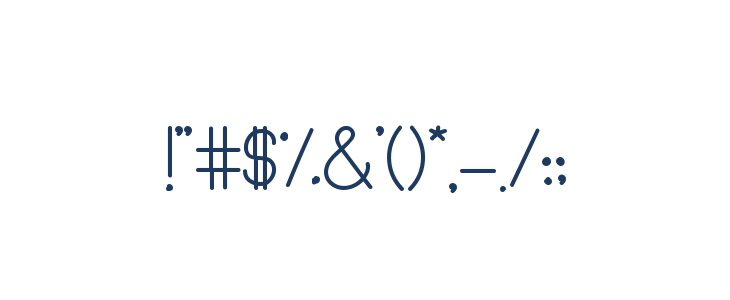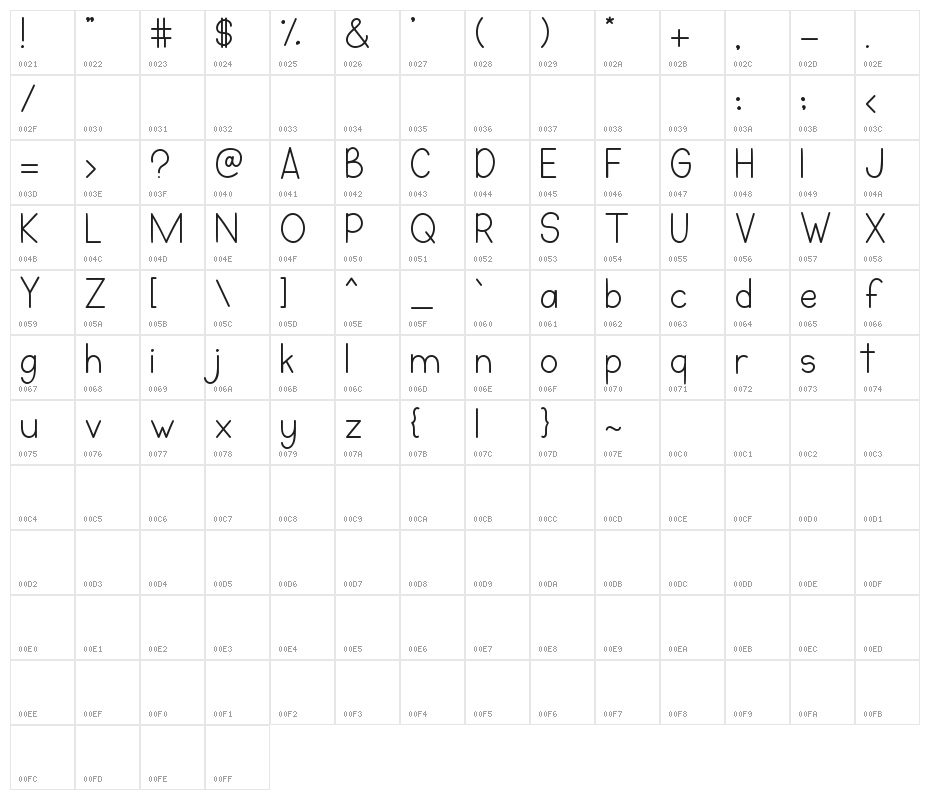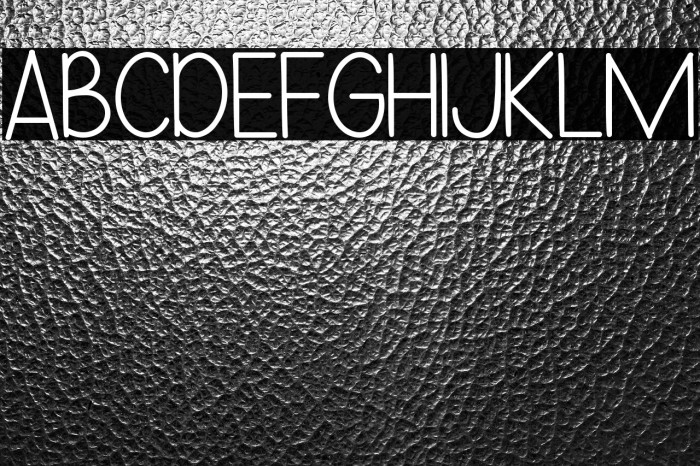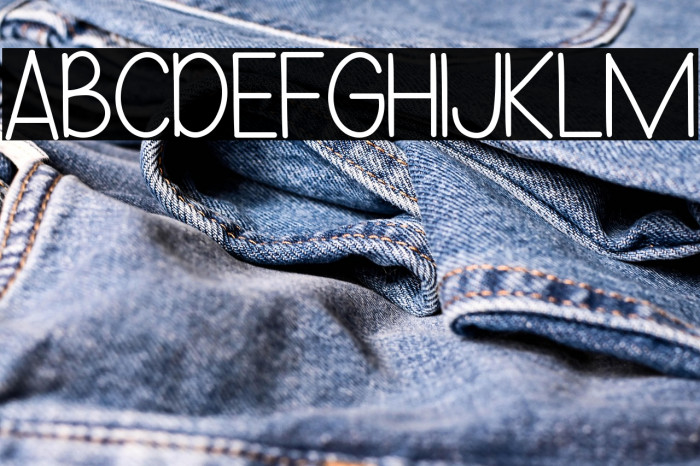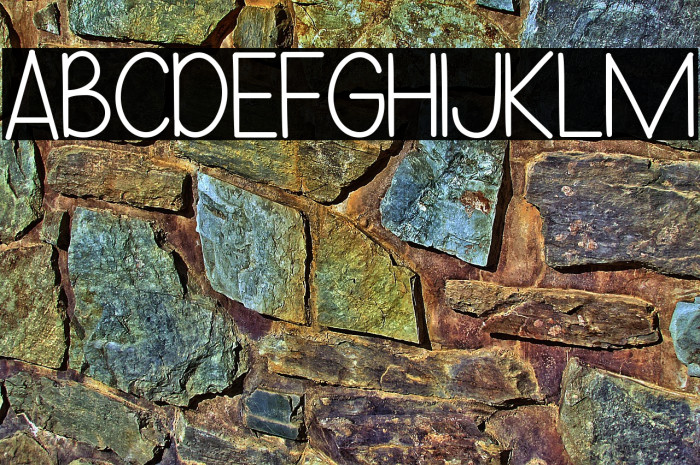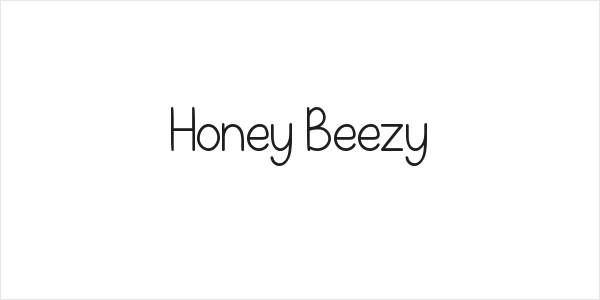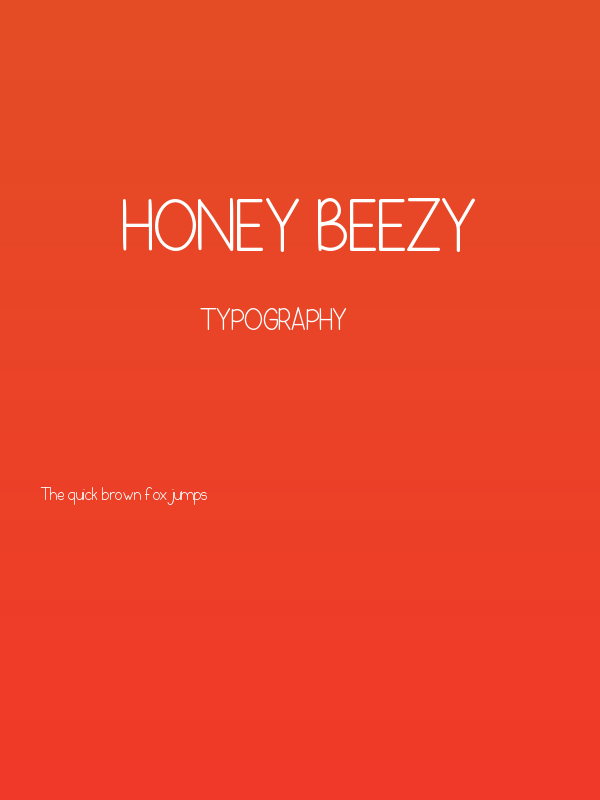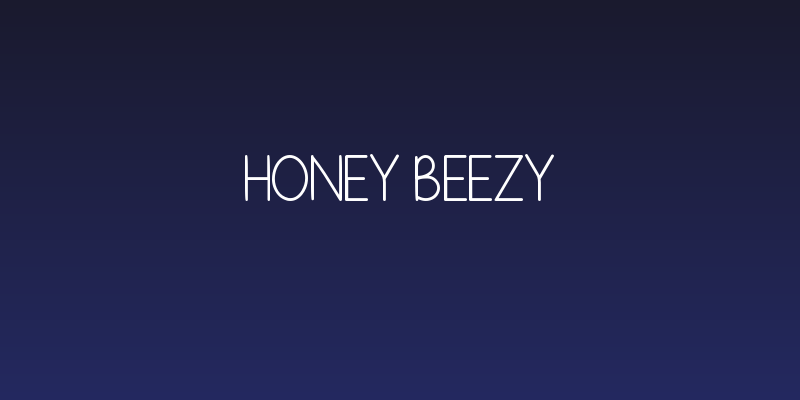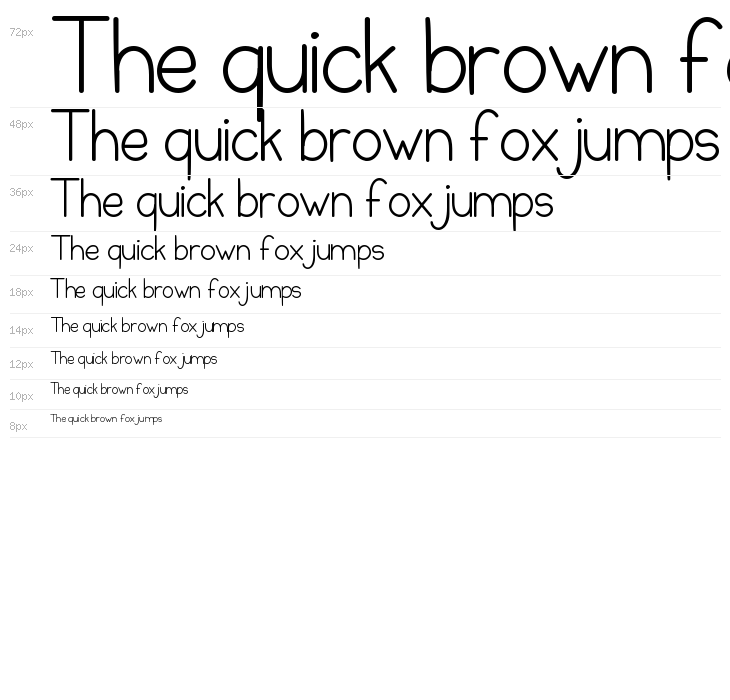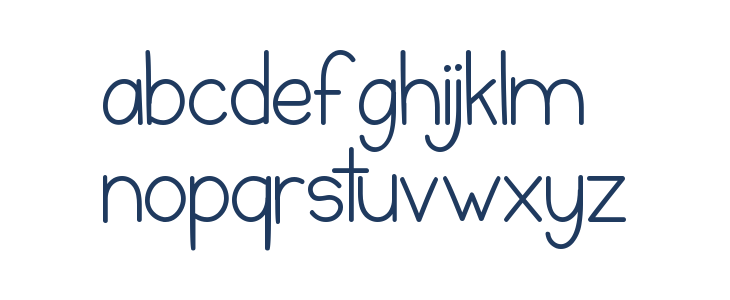
Honey Beezy Font
Honey Beezy Description
This playful and rounded font features a whimsical style with smooth, flowing lines and a friendly appearance. The characters are evenly spaced with a consistent stroke width, giving it a clean and approachable look. The uppercase letters are tall and slightly narrow, while the lowercase letters maintain a consistent height, creating a harmonious balance. The font includes a full set of numerals and a variety of special characters, making it versatile for different design needs. Its simplicity and charm make it suitable for projects that require a lighthearted and inviting feel.
Overall StylePlayful
Use CaseHeadlines, Logos, Invitations
Proposed ProjectsIdeal for children's books, playful branding, greeting cards, and casual invitations.